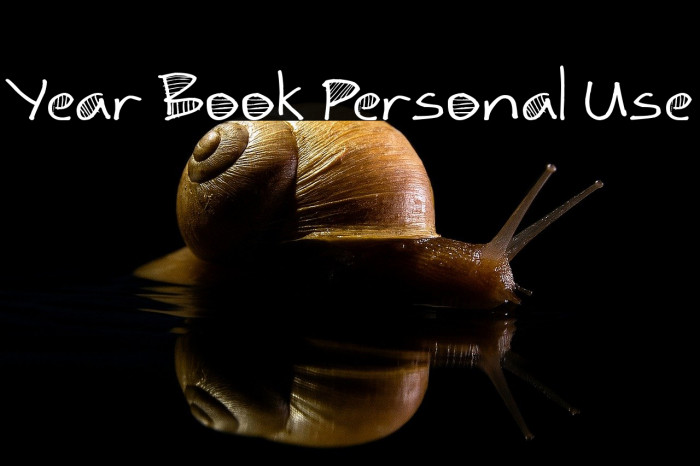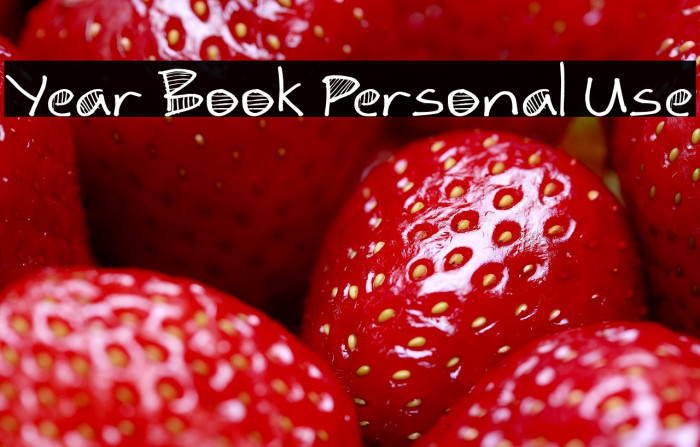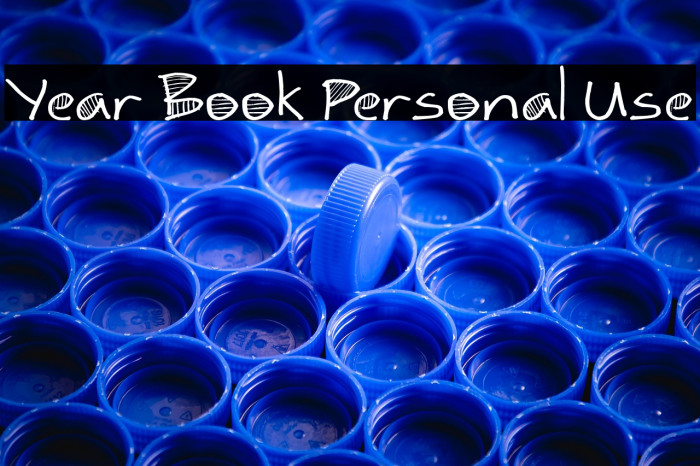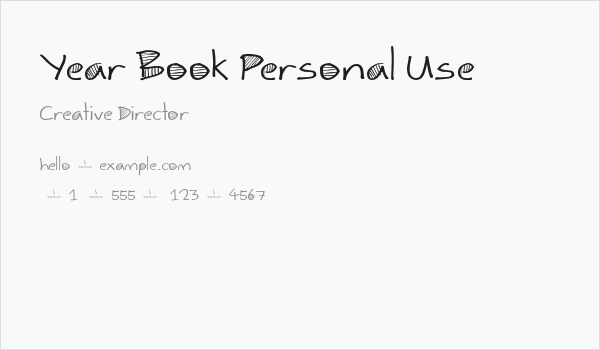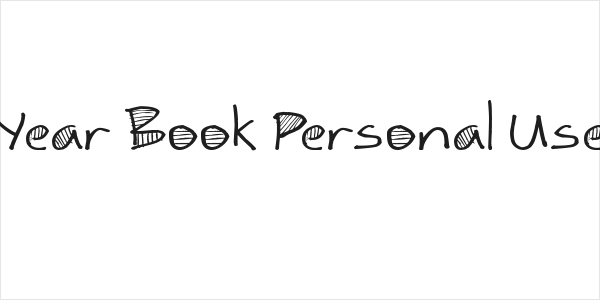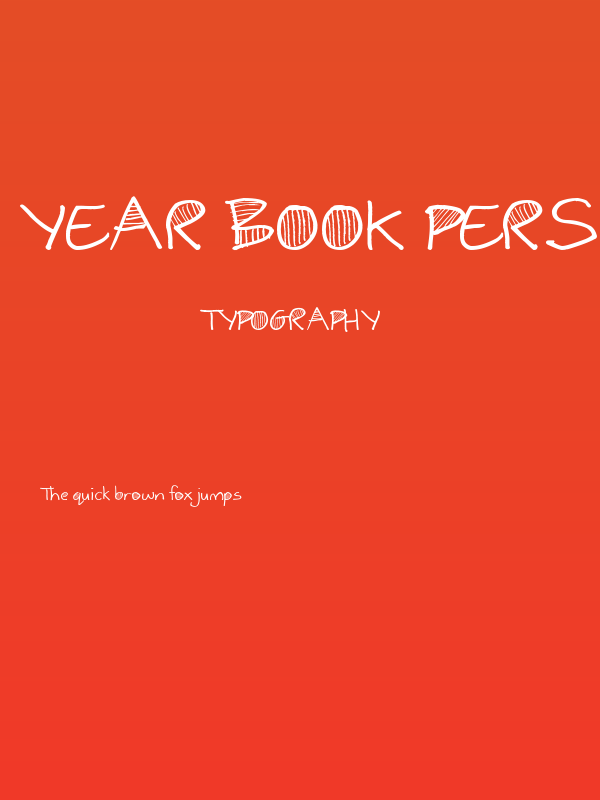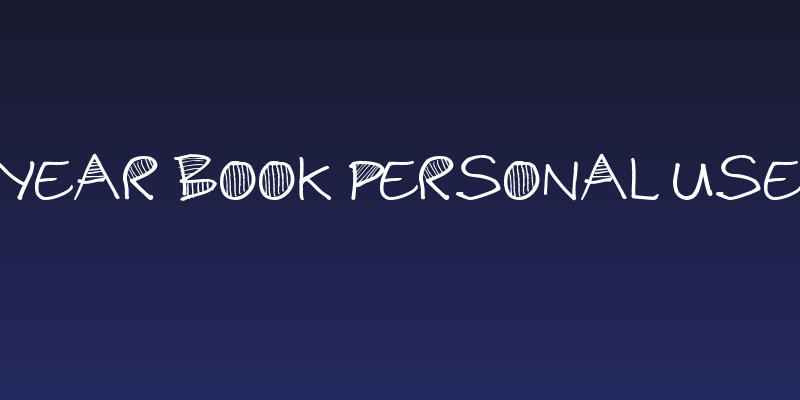
Year Book Personal Use Font
Year Book Personal Use Description
This playful and dynamic font features a handwritten style with a casual, informal appearance. The uppercase letters are bold and slightly irregular, adding a sense of spontaneity and creativity. The lowercase letters maintain a consistent flow, with some characters featuring unique loops and curves that enhance the font's whimsical nature. The numbers are distinct and easy to read, with a quirky touch that matches the overall style. Special characters are integrated seamlessly, maintaining the font's cohesive look. This font is perfect for projects that require a personal, friendly touch.
| Overall Style | Casual, Creative |
| Proposed Projects | Ideal for greeting cards, children's books, personal blogs, and creative branding. |